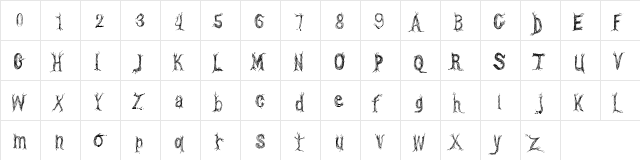
CF One Two Trees Regular
| Foundry | CloutierFontes |
| Designer | Steve Cloutier |
Design Context for CF One Two Trees Typeface
CF One Two Trees is a composed and adaptable typeface that performs quietly and consistently across a wide range of design contexts.